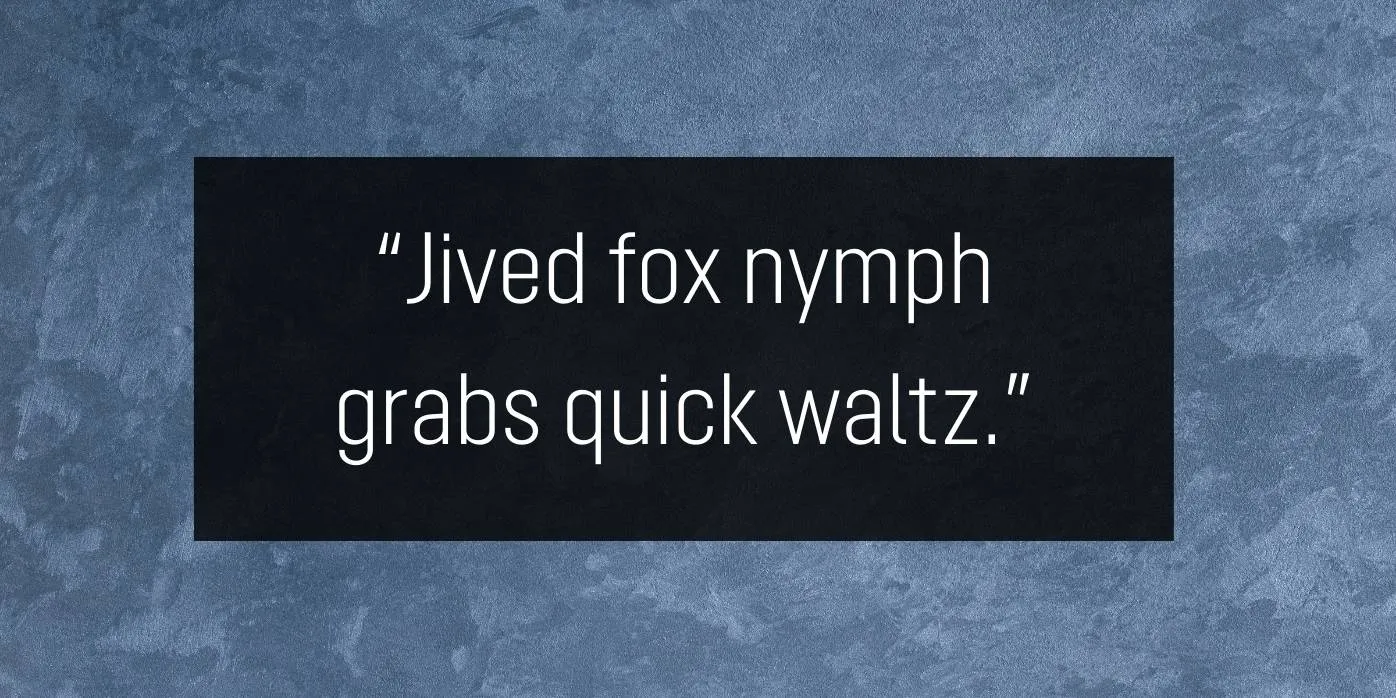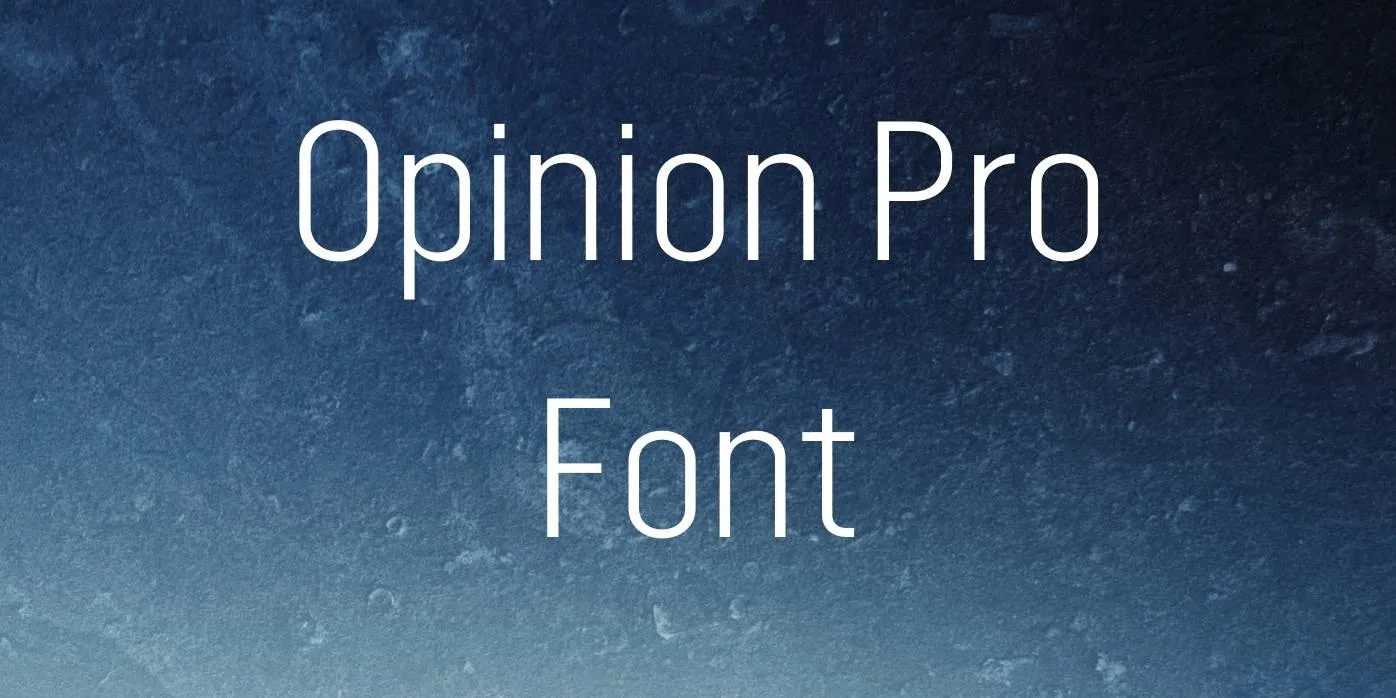
Opinion Pro Font
Opinion Pro Font is a very popular typeface that is developed by Oleh Lishchuk. This marvelous font belongs to the Sans Serif typeface. The most striking feature of this font is that it has unique and stylish curved tails. This classic typeface also supports many international languages.
Brandon Text Font is alternative to this cozy font family. This amazing font was created by a very talented typeface designer from Ukraine. This gorgeous Font family currently consists of 8 different weights ranging from Light to Black. Each weight contains 437 glyphs that support many different languages.
This Sans Serif typeface has a very high x-height and comes with both old styles as well as lining figures. You can use its generator tool and download it from our websites.